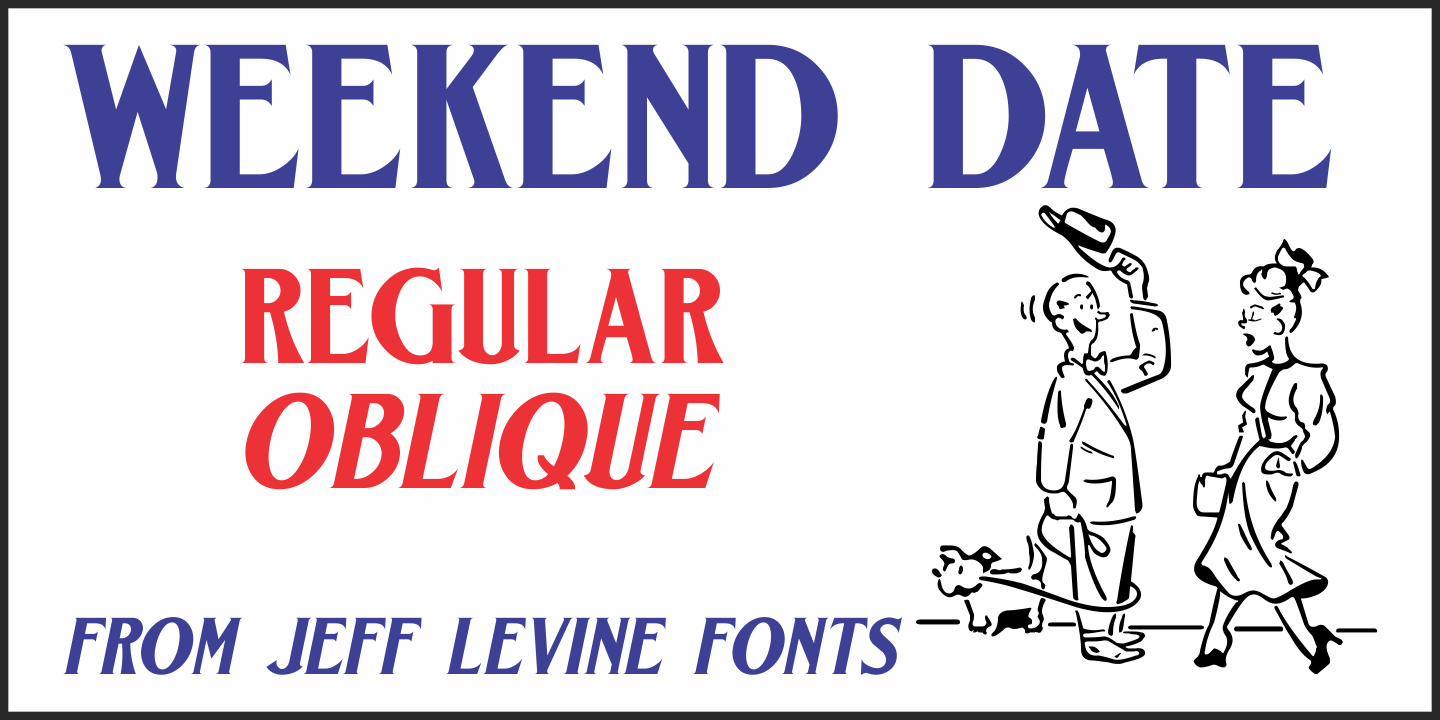
Weekend Date JNL Font is perfect for romantic restaurant branding, intimate cafe signage, cozy date night advertisements, casual lifestyle magazines, relaxed entertainment venues, charming boutique hotels, weekend getaway promotions, and heartwarming social media campaigns. This charming typeface excels in leisure hospitality applications, romantic design projects, and any creative work requiring casual elegance that captures the essence of relaxed romance and weekend comfort through warm visual intimacy.
What makes Weekend Date JNL Font exciting is its wonderful ability to embody casual romance and weekend relaxation through warmly crafted letterforms that carry the gentle spirit of intimate moments and comfortable togetherness. The font features charmingly designed characters with romantic curves and leisurely proportions that evoke feelings of cozy intimacy and relaxed sophistication, making it ideal for brands seeking to establish connections with couples and communicate through warm romantic visual language. Its intimate presence ensures immediate recognition of casual elegance and romantic authenticity.
Weekend Date JNL Font family includes multiple weights and styles: Regular, Bold, Light, Medium, Italic variations, and romantic alternates with intimate embellishments and leisure-inspired decorative elements. Each family member maintains the distinctive casual character while offering comprehensive design options for romantic campaigns, from gentle intimate text to charming headlines that establish romantic authority and casual credibility through warmly sophisticated typography.
Whether you're designing romantic hospitality brands or creating intimate lifestyle campaigns, Weekend Date JNL Font Free Download provides the perfect typography solution for casual romance branding needs. This font transforms ordinary text into charming romantic expressions that communicate intimate warmth and relaxed elegance. Romantic restaurants and leisure lifestyle brands choose this typeface for its ability to convey casual romance through warmly crafted letterforms that embrace designs with intimate charm and celebrate the beautiful simplicity of weekend togetherness.